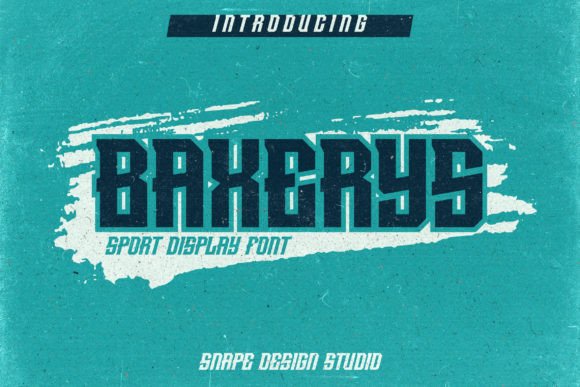
Baxerys Font: The Ultimate Choice for Sports-Inspired Designs
In the world of graphic design, typography plays a crucial role in conveying the message and tone of a project. When it comes to sports-inspired designs, a bold and powerful font is essential to grab attention and evoke the right emotions. This is where Baxerys Font comes into play – a sport font designed to add a vibrant touch to your creative projects. In this article, we’ll explore the features and benefits of Baxerys Font and why it’s the perfect choice for your next sports-inspired design.
What is Baxerys Font?
Baxerys Font is a sport font created to draw attention and highlight any project that requires a bold feel. Its powerful design makes it suitable for a wide range of applications, including sports design, movies, posters, games, book covers, headlines, titles, and many more projects. With Baxerys Font, you can add a professional and dynamic touch to your designs, making them stand out from the crowd.
Key Features of Baxerys Font
- Bold and Powerful Design: Baxerys Font boasts a bold and powerful design that commands attention and evokes energy.
- Sport-Inspired Aesthetic: The font’s sport-inspired aesthetic makes it perfect for sports-related designs, such as team logos, jerseys, and sports equipment.
- Versatile: Baxerys Font is versatile and can be used for a wide range of projects, including movies, posters, games, book covers, and more.
- Easy to Read: Despite its bold design, Baxerys Font is easy to read, making it suitable for headlines, titles, and body text.
Benefits of Using Baxerys Font
Using Baxerys Font in your designs offers several benefits, including:
- Attention-Grabbing: Baxerys Font is designed to grab attention and make your designs stand out.
- Professional Look: The font’s bold and powerful design gives your designs a professional and dynamic look.
- Time-Saving: With Baxerys Font, you can save time and effort in creating custom typography for your designs.
How to Use Baxerys Font in Your Designs
Using Baxerys Font in your designs is easy. Here are some tips to get you started:
- Choose the Right Size: Choose a font size that suits your design and ensures readability.
- Experiment with Colors: Experiment with different colors to find the one that best suits your design.
- Pair with Other Fonts: Pair Baxerys Font with other fonts to create a unique and visually appealing design.
- Use in Headlines and Titles: Use Baxerys Font in headlines and titles to add a bold and attention-grabbing touch.
Who Can Benefit from Baxerys Font?
Baxerys Font is suitable for a wide range of designers and professionals, including:
- Graphic Designers: Graphic designers can use Baxerys Font in their designs to add a bold and professional touch.
- Art Directors: Art directors can use Baxerys Font to create visually appealing designs that grab attention.
- Marketing Professionals: Marketing professionals can use Baxerys Font in their marketing materials to add a dynamic and attention-grabbing touch.
- Game Developers: Game developers can use Baxerys Font in their games to create a bold and immersive experience.
In conclusion, Baxerys Font is a powerful and versatile sport font that can add a vibrant touch to your sports-inspired designs. Its bold and attention-grabbing design makes it perfect for a wide range of applications, from sports design to movies and posters. With its ease of use and cost-effectiveness, Baxerys Font is an excellent choice for designers and professionals looking to create visually appealing designs that stand out.
- What is Baxerys Font?: Baxerys Font is a sport font designed to add a bold and vibrant touch to sports-inspired designs.